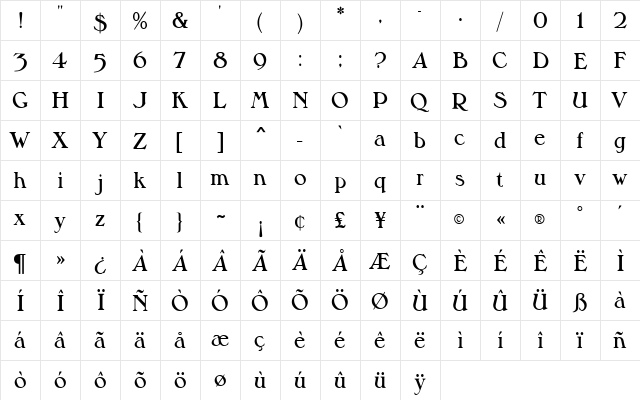
Milton MN Regular
Design Context for Milton MN Typeface
Milton MN takes a measured approach to typography — its balanced proportions and neutral character make it a reliable workhorse for both digital and print work.